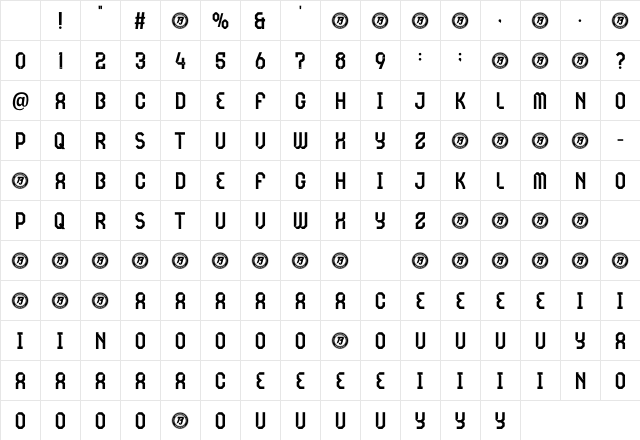
Feijenoord Personal Use 2 is a composed and adaptable typeface that performs quietly and consistently across a wide range of design contexts.
Who designed the Feijenoord Personal Use 2 Regular font?